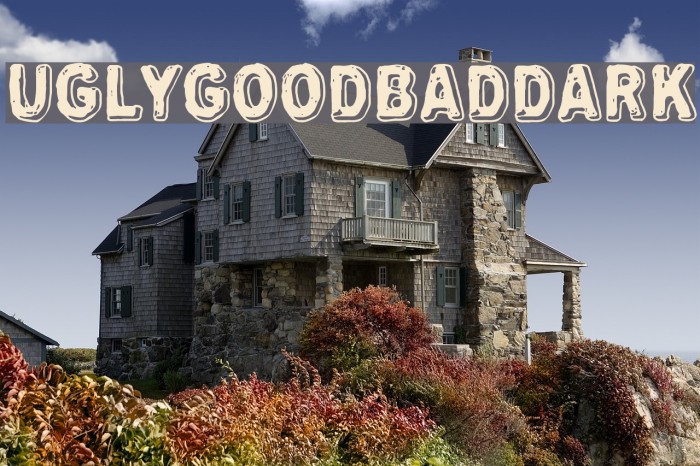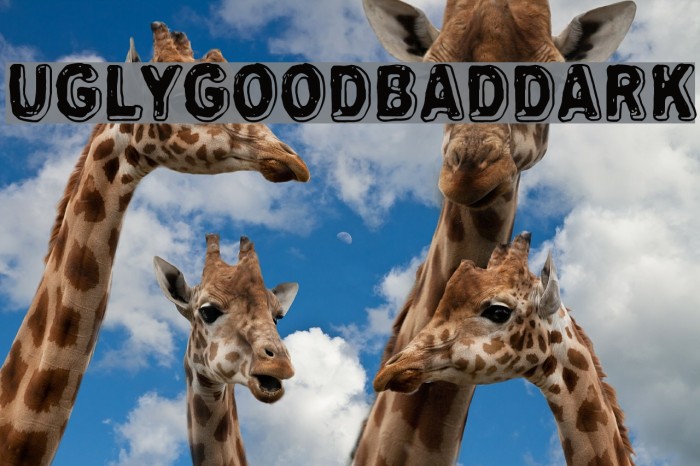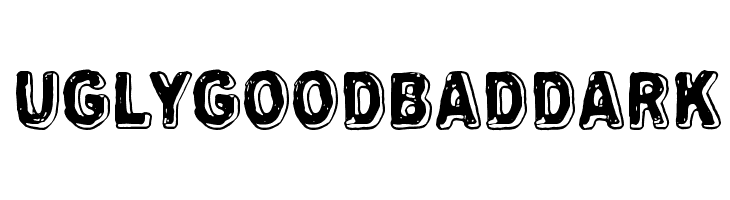
Uglygoodbaddark Font
This font features a bold, playful design with a hand-drawn aesthetic. The characters are outlined with a thick, uneven stroke, giving them a rugged and dynamic appearance. The interior of each letter is filled with a textured pattern that adds depth and visual interest. The overall style is reminiscent of graffiti or street art, making it ideal for projects that require a bold and unconventional look. The font includes a full set of uppercase and lowercase letters, numbers, and a variety of special characters, all maintaining the same distinctive style.
A bold, hand-drawn font with a textured, graffiti-like appearance.